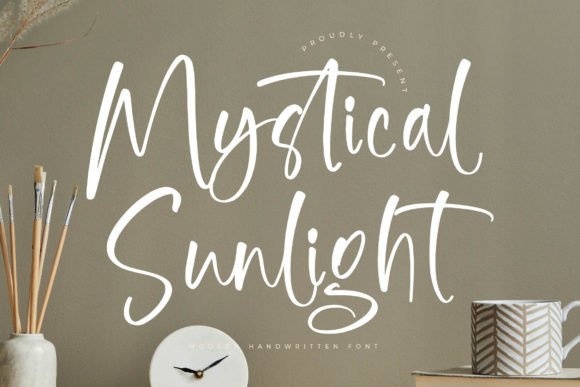
Mystical Sunlight Font: Elevate Your Designs with Luxury Script Style
In the world of typography, fonts play a crucial role in conveying the tone and personality of a brand or design. When it comes to creating luxurious and elegant designs, the right font can make all the difference. This is where the Mystical Sunlight Font comes in – a modern handwritten font from Letterena that exudes sophistication and refinement. In this article, we’ll explore the features and benefits of the Mystical Sunlight Font and how it can elevate your designs to the next level.
What is Mystical Sunlight Font?
Mystical Sunlight – Modern Handwritten Font is a luxury script font designed by Letterena. Its elegant and flowing lines make it perfect for creating high-end designs that require a touch of sophistication. The font’s modern handwritten style gives it a unique and distinctive look that sets it apart from other fonts in the same category.
Key Features of Mystical Sunlight Font
- Luxury Script Style: Mystical Sunlight Font boasts a luxurious script style that is perfect for creating high-end designs.
- Modern Handwritten: The font’s modern handwritten style gives it a unique and distinctive look.
- Versatile: The font is suitable for a wide range of projects, including logos, branding projects, homeware designs, product packaging, and more.
- Elegant and Refined: The font’s elegant and refined lines make it perfect for creating sophisticated designs.
Ideas for Using Mystical Sunlight Font
The Mystical Sunlight Font is a versatile font that can be used for a wide range of projects. Here are some ideas to get you started:
- Logos and Branding Projects: Use the Mystical Sunlight Font to create a luxurious and elegant logo or branding project that reflects your brand’s personality.
- Homeware Designs: Add a touch of sophistication to your homeware designs, such as cushions, tote bags, and mugs.
- Product Packaging: Elevate your product packaging with the Mystical Sunlight Font, perfect for luxury products such as jewelry, cosmetics, and high-end electronics.
- Quotes and Posters: Create inspiring quotes and posters that showcase the font’s elegant and refined lines.
- Shopping Bags and T-Shirts: Use the Mystical Sunlight Font to create stylish and eye-catching shopping bags and t-shirts.
- Book Covers and Name Cards: Add a touch of luxury to your book covers and name cards with the Mystical Sunlight Font.
- Invitation Cards and Greeting Cards: Create beautiful and elegant invitation cards and greeting cards that showcase the font’s sophisticated style.
- Labels and Photography: Use the Mystical Sunlight Font to create stylish labels and watermarks for your photography projects.
- Special Events: The font is perfect for creating elegant and sophisticated designs for special events such as weddings, galas, and charity events.
Benefits of Using Mystical Sunlight Font
The Mystical Sunlight Font offers several benefits that make it an excellent choice for designers and businesses looking to create luxurious and elegant designs. Here are some of the benefits:
- Unique and Distinctive: The font’s modern handwritten style gives it a unique and distinctive look that sets it apart from other fonts.
- High-Quality Design: The font is designed with high-quality and precision, ensuring that it looks great in any design.
- Easy to Read: The font is easy to read, making it perfect for body text and headlines.
- Versatile: The font is suitable for a wide range of projects, making it a great addition to any designer’s toolkit.
- Luxurious and Elegant: The font’s luxurious and elegant style makes it perfect for creating high-end designs.
Tips and Tricks for Using Mystical Sunlight Font
Here are some tips and tricks for using the Mystical Sunlight Font:
- Pair it with Other Fonts: Pair the Mystical Sunlight Font with other fonts to create a unique and interesting design.
- Experiment with Colors: Experiment with different colors to find the perfect combination that complements the font.
- Use it for Headlines and Titles: Use the Mystical Sunlight Font for headlines and titles to add a touch of luxury and elegance.
- Add Texture and Patterns: Add texture and patterns to your design to give it a more interesting and dynamic look.
In conclusion, the Mystical Sunlight Font is a luxurious and elegant font that is perfect for creating high-end designs. Its modern handwritten style and versatile nature make it suitable for a wide range of projects, from logos and branding projects to homeware designs and product packaging. With its unique and distinctive look, high-quality design, and easy readability, the Mystical Sunlight Font is an excellent choice for designers and businesses looking to elevate their designs to the next level.